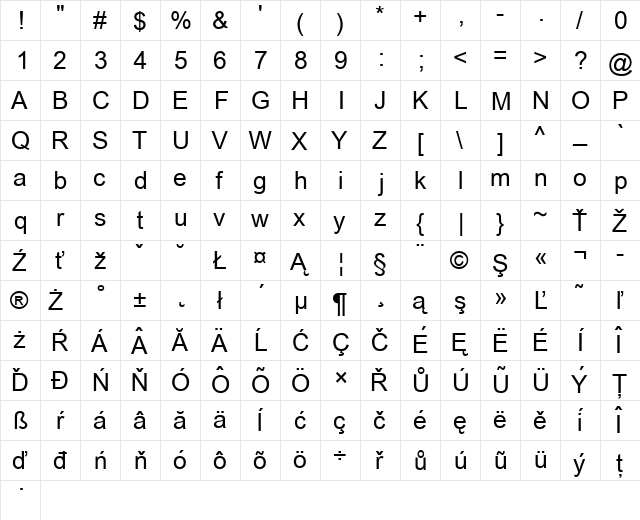
BC CE Normal
Design Context for BC CE Typeface
BC CE offers clean, dependable letterforms without strong stylistic allegiance, making it a practical choice for designers who need flexibility.